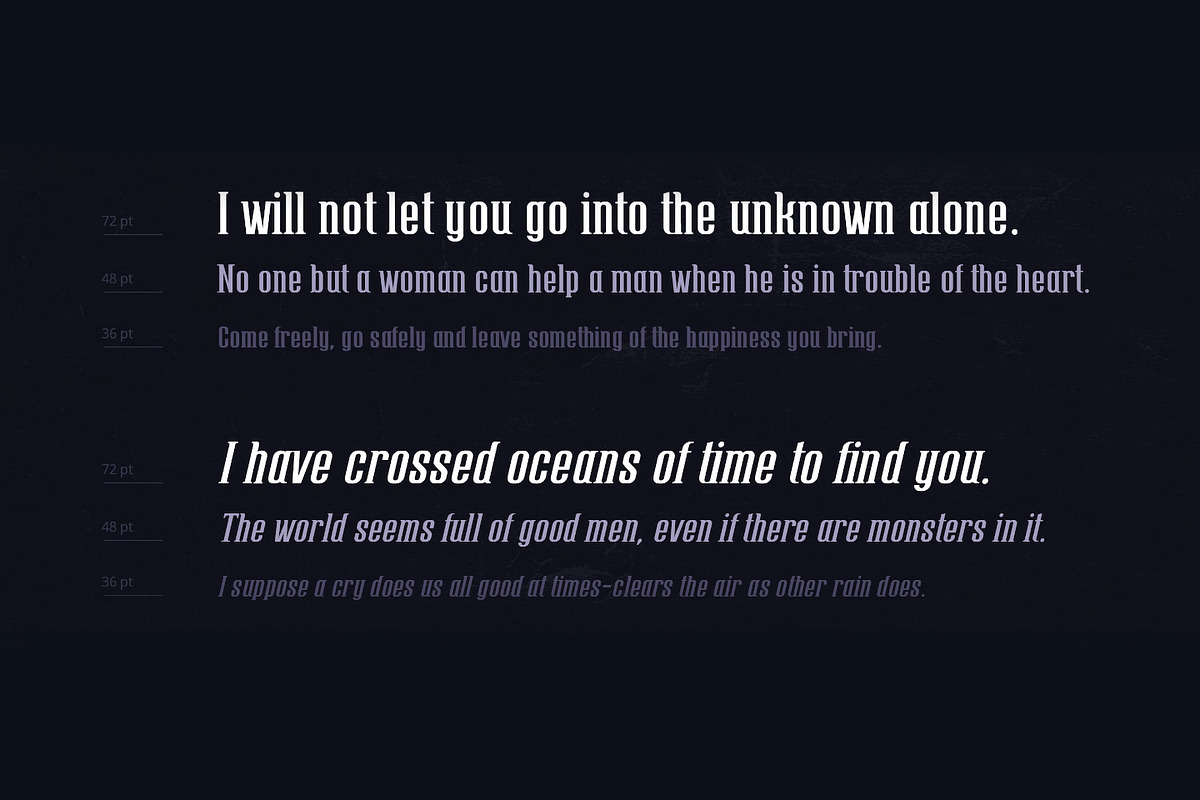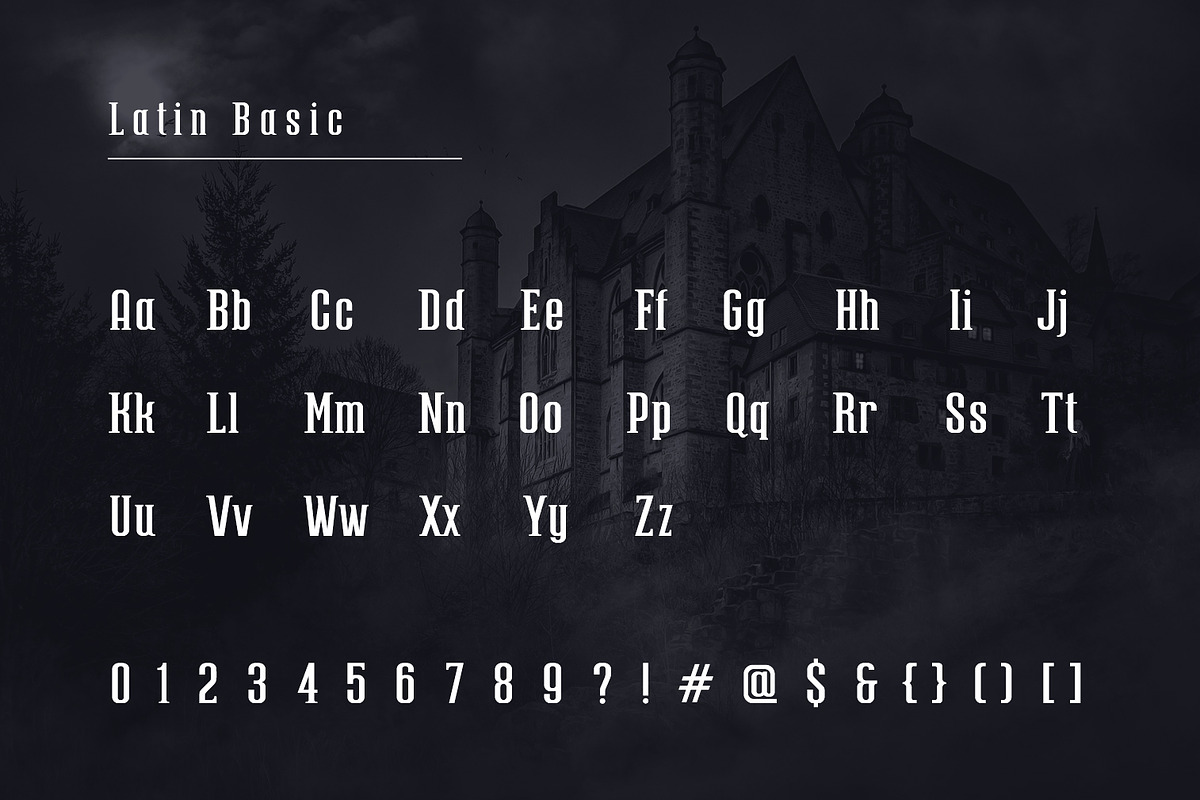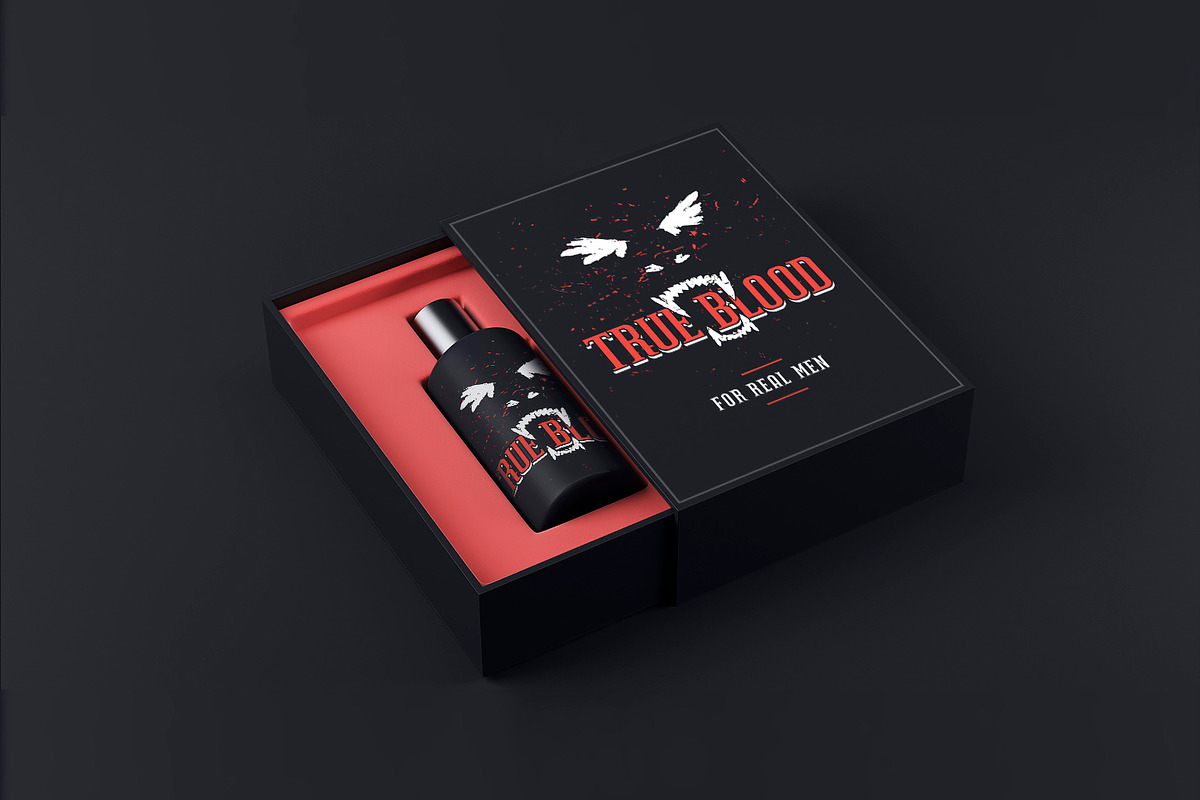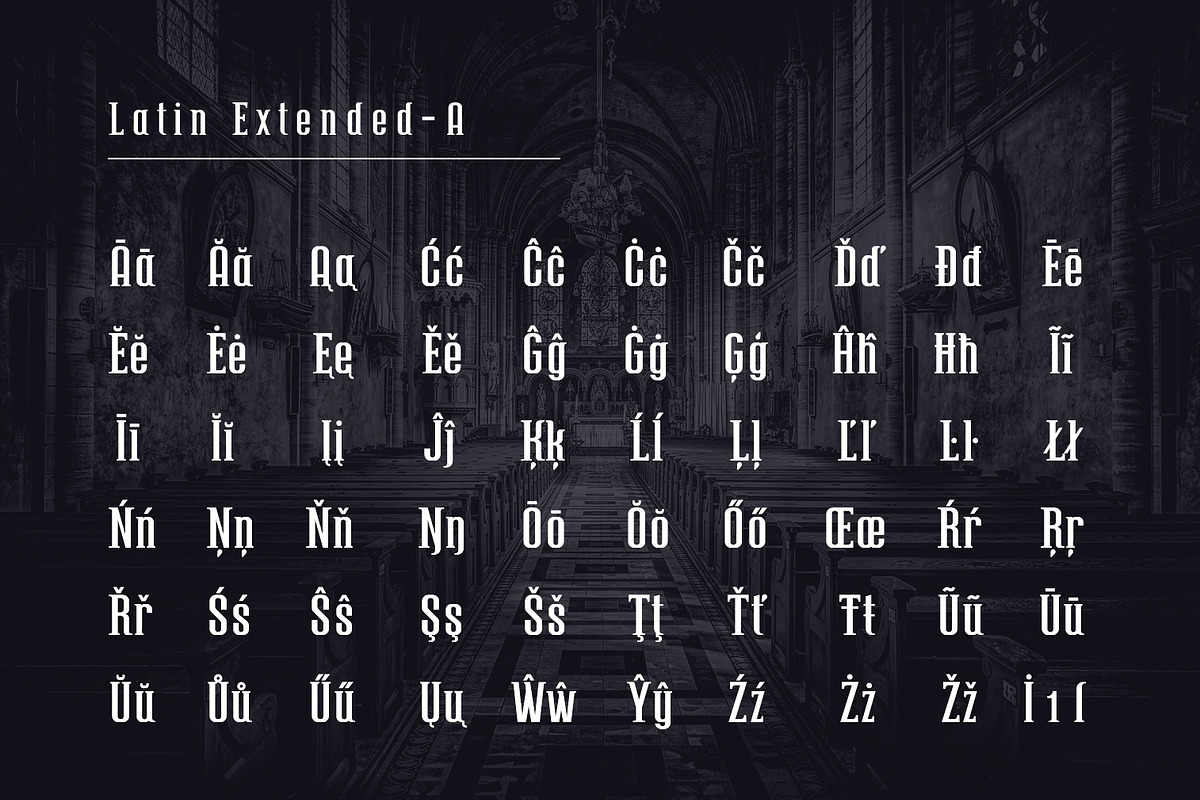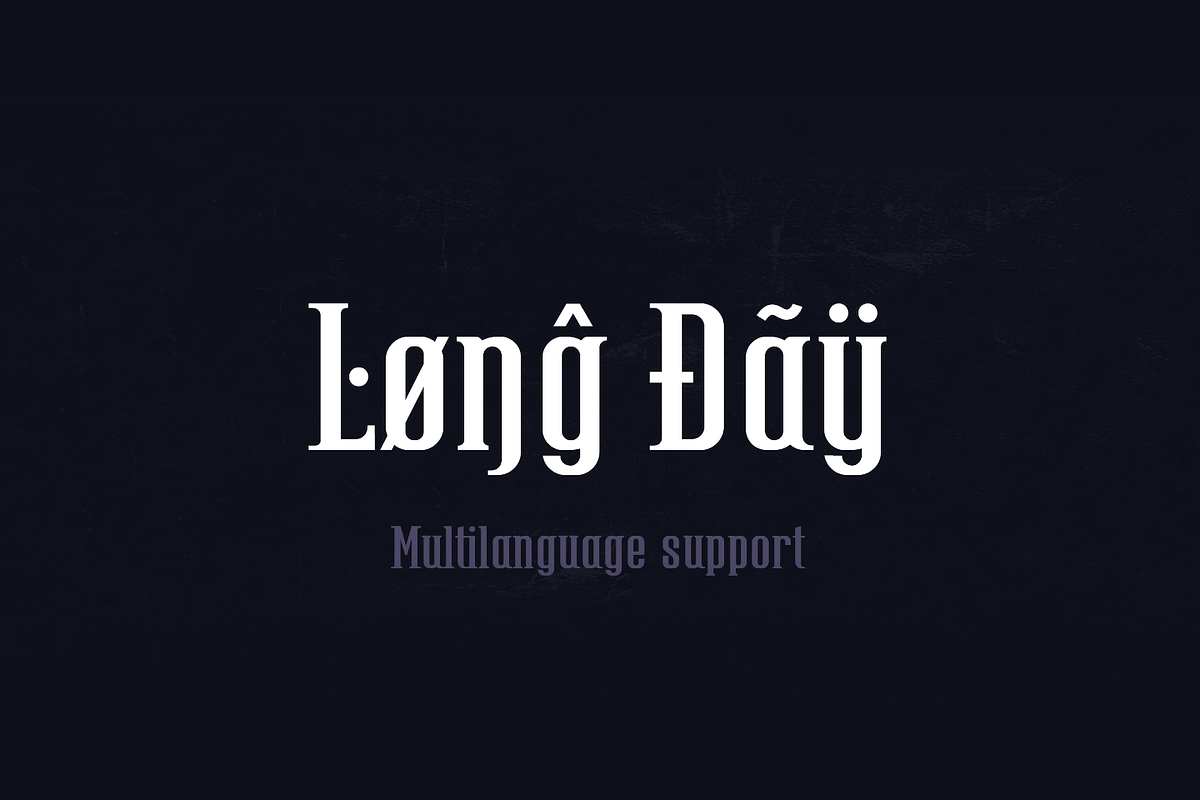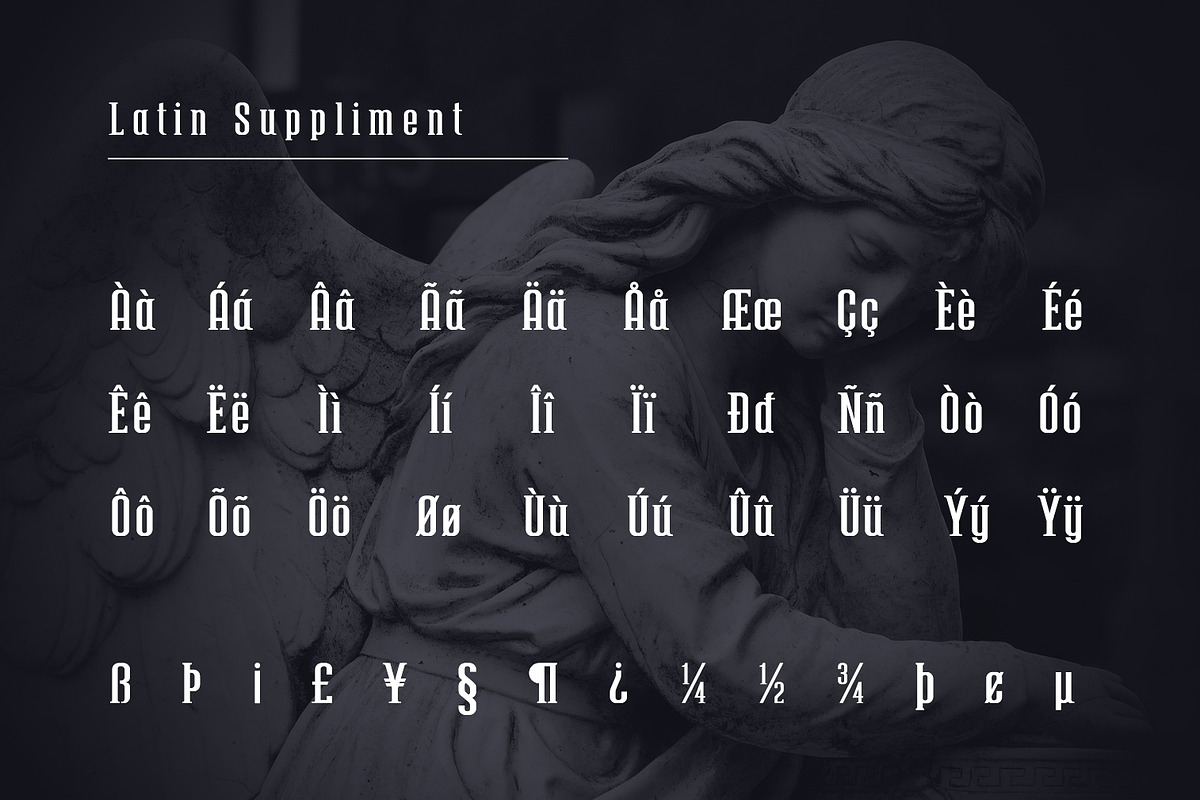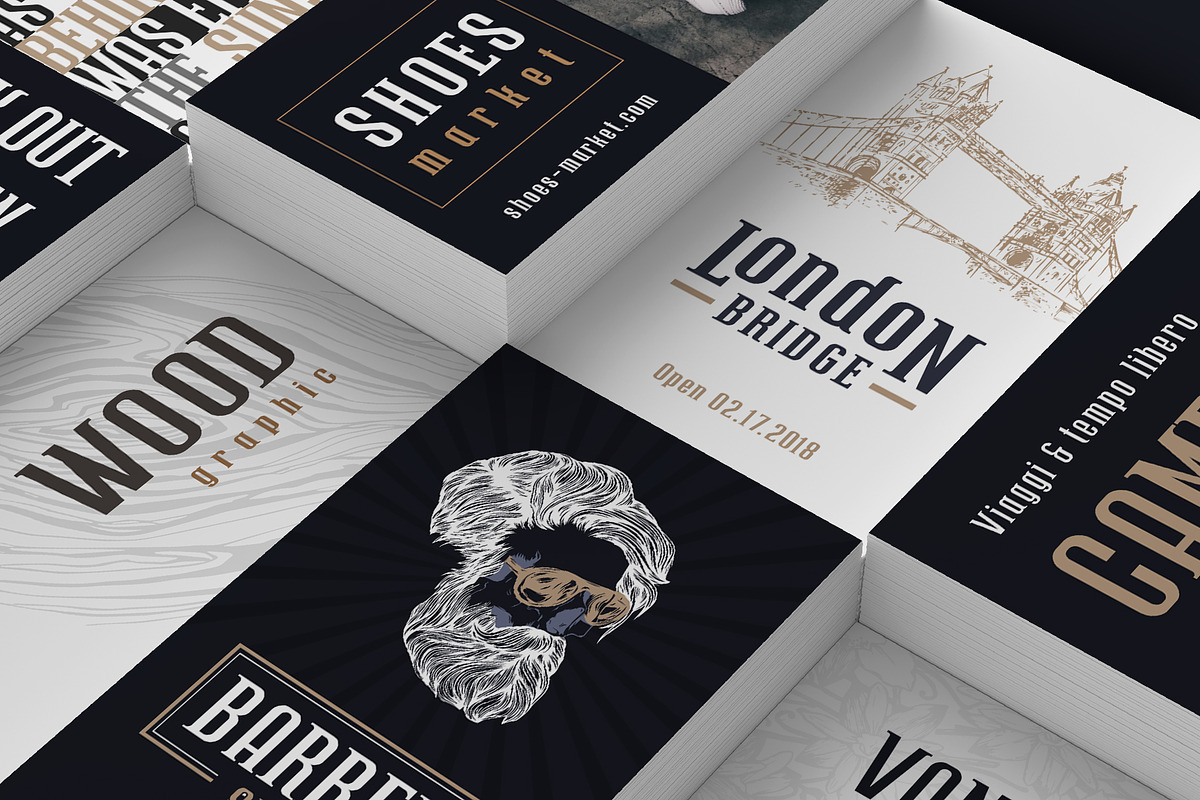
'DRACULA' Multi Language Serif Font
Dracula - Elegant narrow Serif font, inspired by gothic handwriting. Extended serif strokes makes font more ominous and austere.
Most font ligatures made in same width, which makes the line look more solid. Font does include 4 typefaces: Basic Latin, Latin Suppliment, Latin Extended - A, Cyrrilic and many extra symbols. Total symbols count: 442.
Font does support these languages: English, French, Spanish, German, Italian, Turkish, Scandinavian languages, East Slavic languages and Cyrillic fonts. This makes the font ideal for titles, printed matter, packaging and logos.
P.S. Font currently made only in one typeface - Regular and Italic. Bold will be added in upcoming updates.
- Most font ligatures made in same width, which makes the line look more solid.